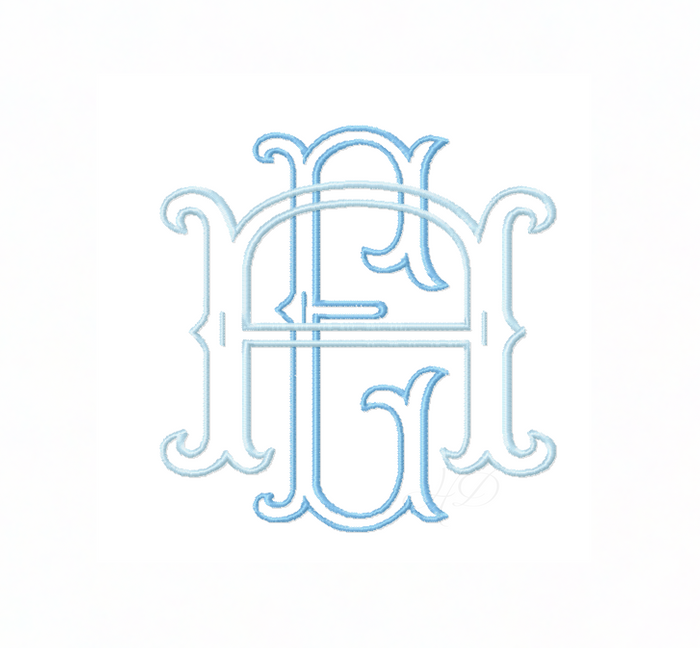
Fishtail Outline Satin Stitch Embroidery Font Package 5x7 6x10
Unleash your creativity with our Fishtail Outline Satin Stitch Embroidery Font Package, perfect for personalized monogramming. This package offers a unique two-letter monogram format created with elegant satin stitching, making it the ideal choice for embroidery machine projects.
Unlike appliqué fonts, our satin stitch outline font brings a refined touch to your designs with tall and thin letters as well as shorter, wider letters. Each size includes a total of 26 versatile letters, and the essential Dot symbol, ensuring you have everything you need for stunning customization.